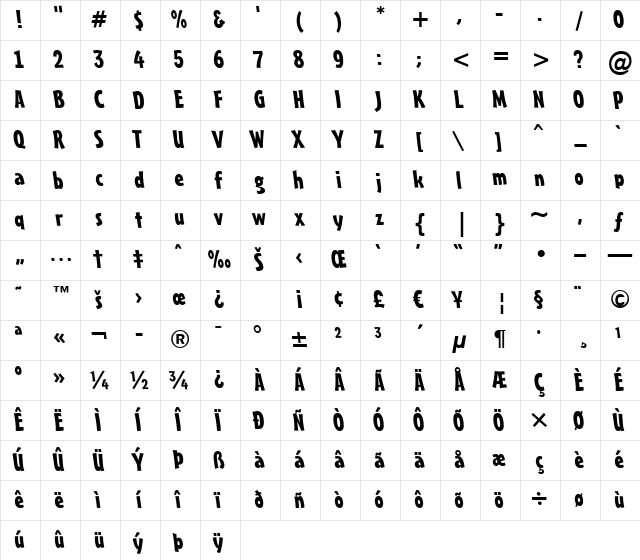
Complete a_FrudgerRevObl Regular glyph index. Displaying only characters natively supported by a_FrudgerRevObl Regular font.
a_FrudgerRevObl is a composed and adaptable typeface that performs quietly and consistently across a wide range of design contexts.